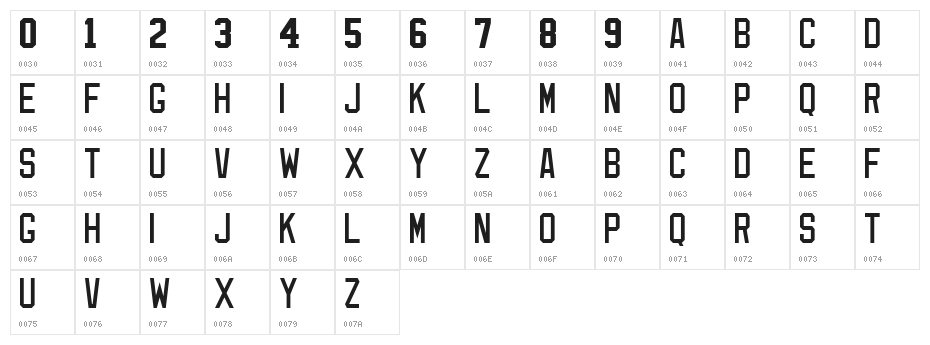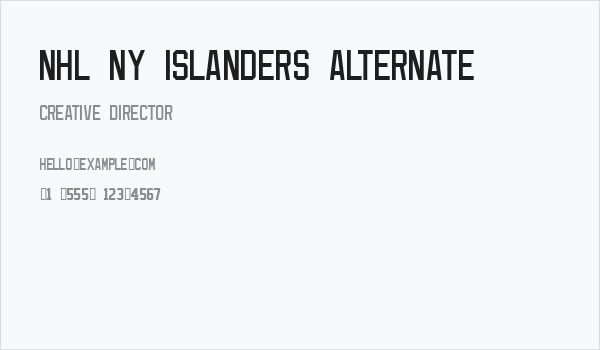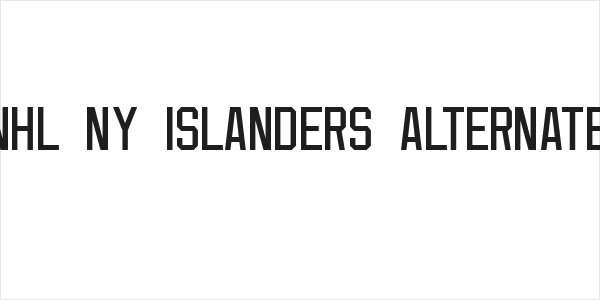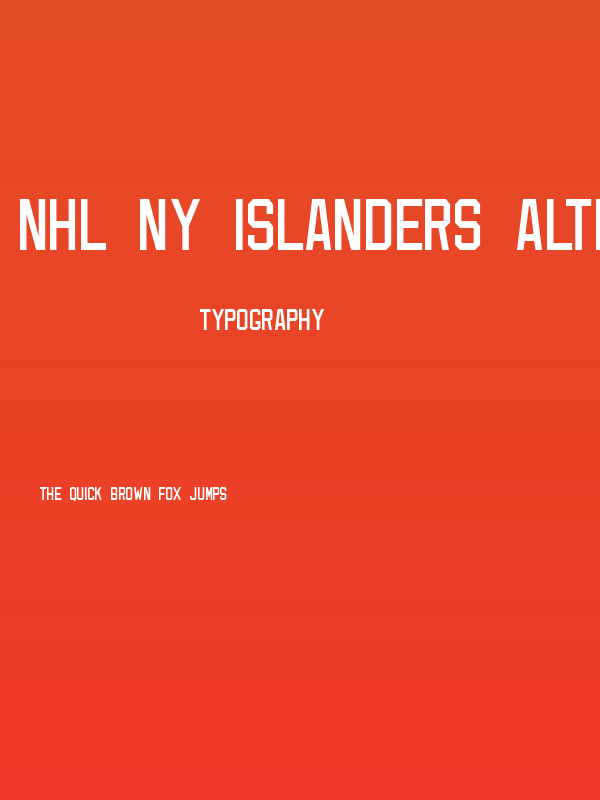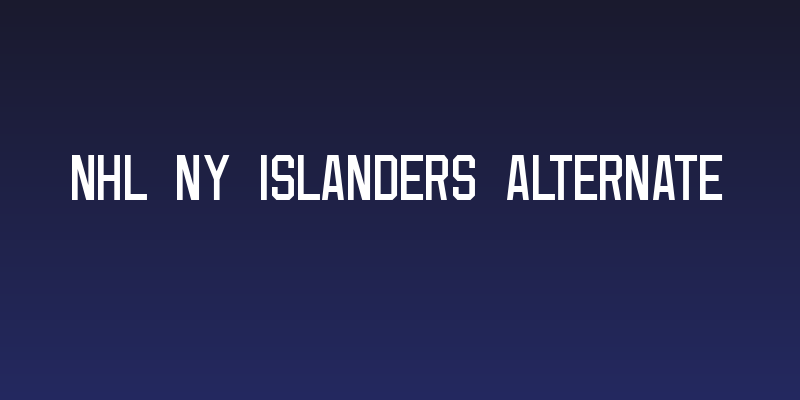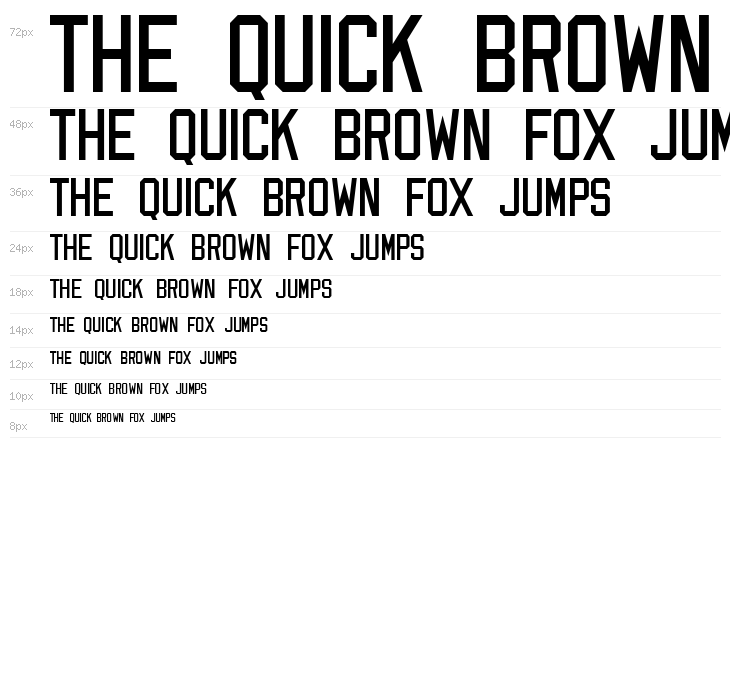
NHL NY Islanders Alternate Font
NHL NY Islanders Alternate Description
This font features a bold, geometric design with strong, angular lines and a modern aesthetic. The uppercase letters are uniform in height, creating a cohesive and structured appearance. The numbers follow the same bold style, ensuring consistency across all characters. The font's design is reminiscent of sports or team branding, making it ideal for applications that require a strong and impactful visual presence. Its clean lines and lack of embellishments contribute to a straightforward and assertive look, suitable for various design projects.
| Proposed Projects | Ideal for sports branding, team logos, posters, and merchandise. |